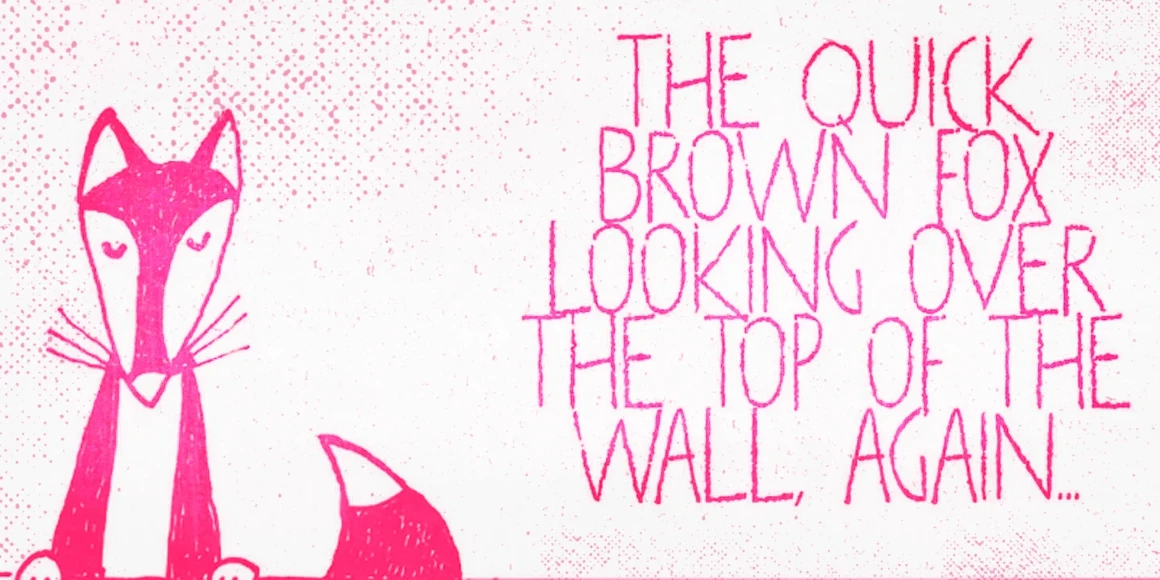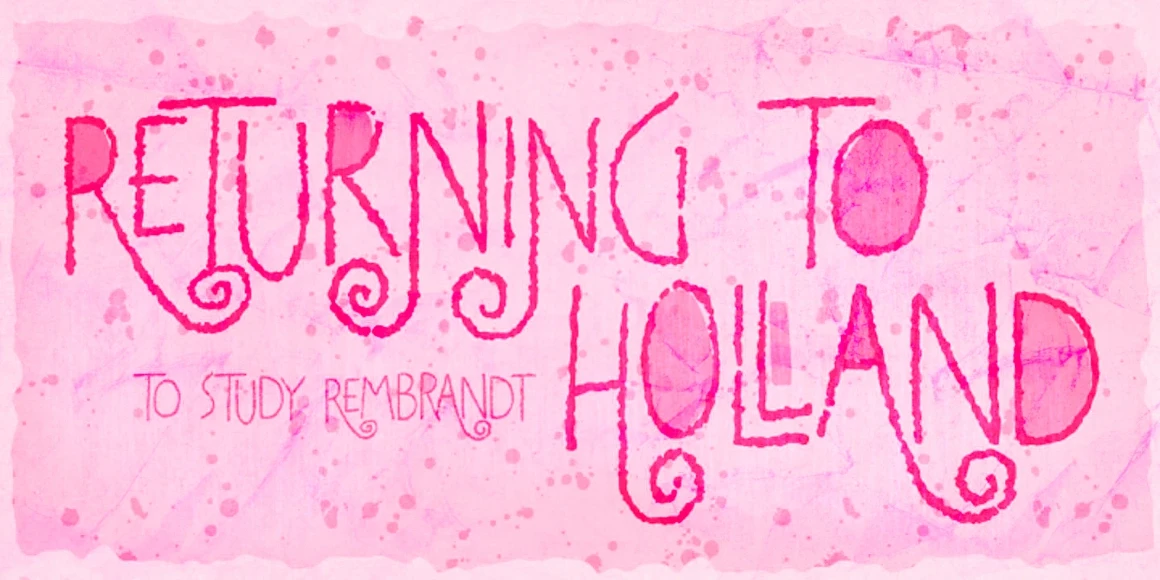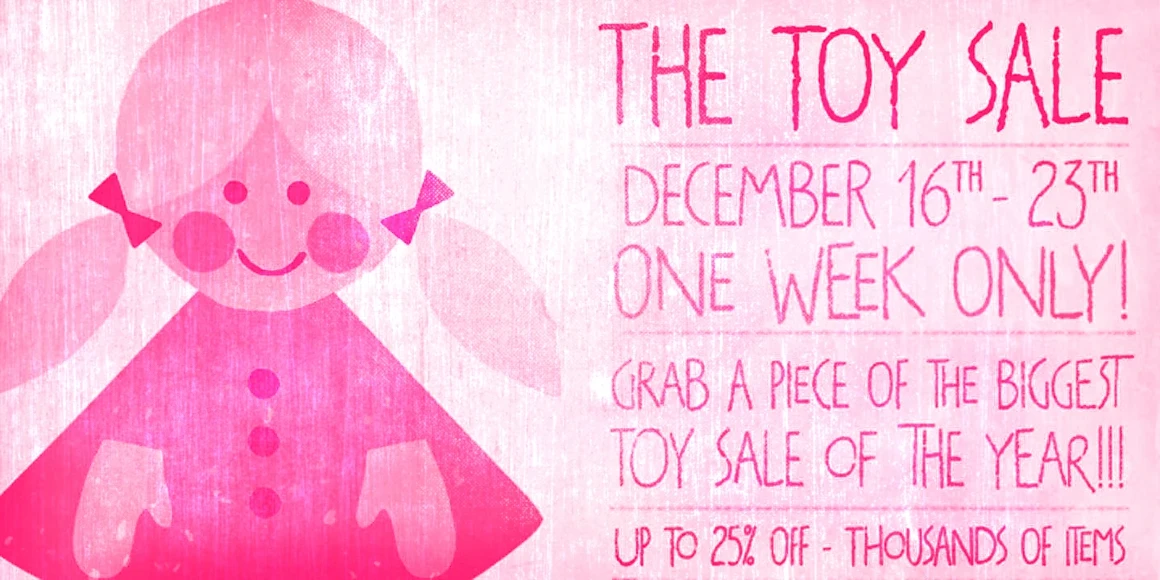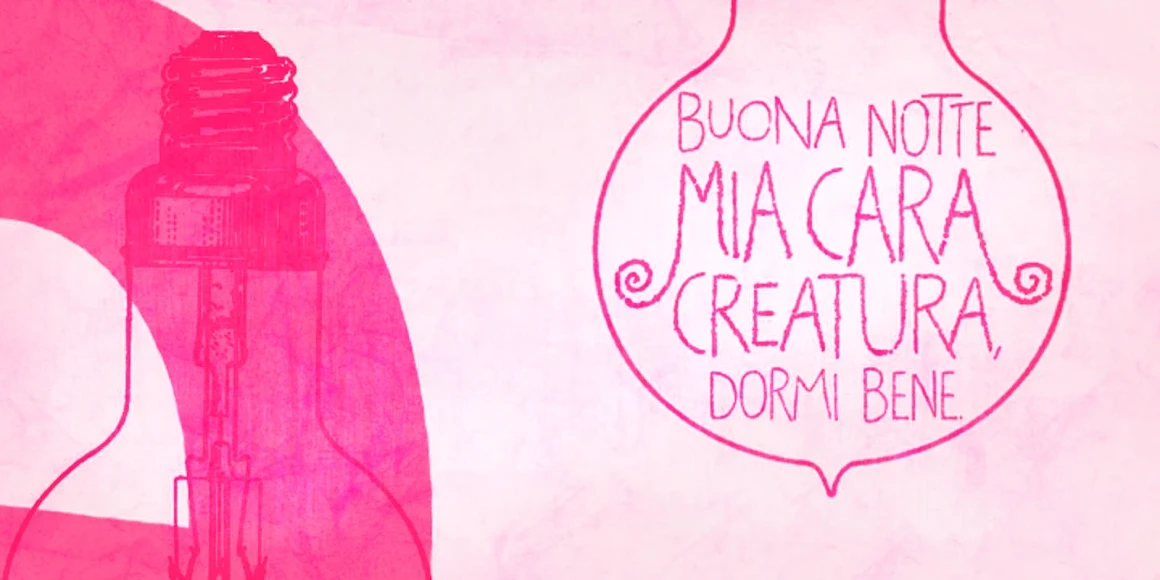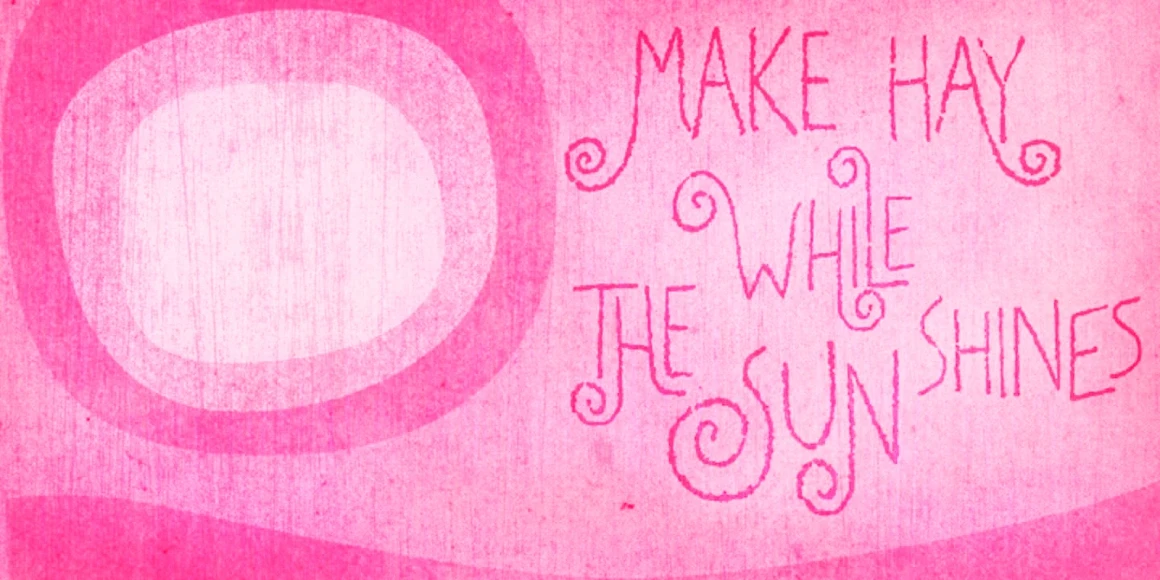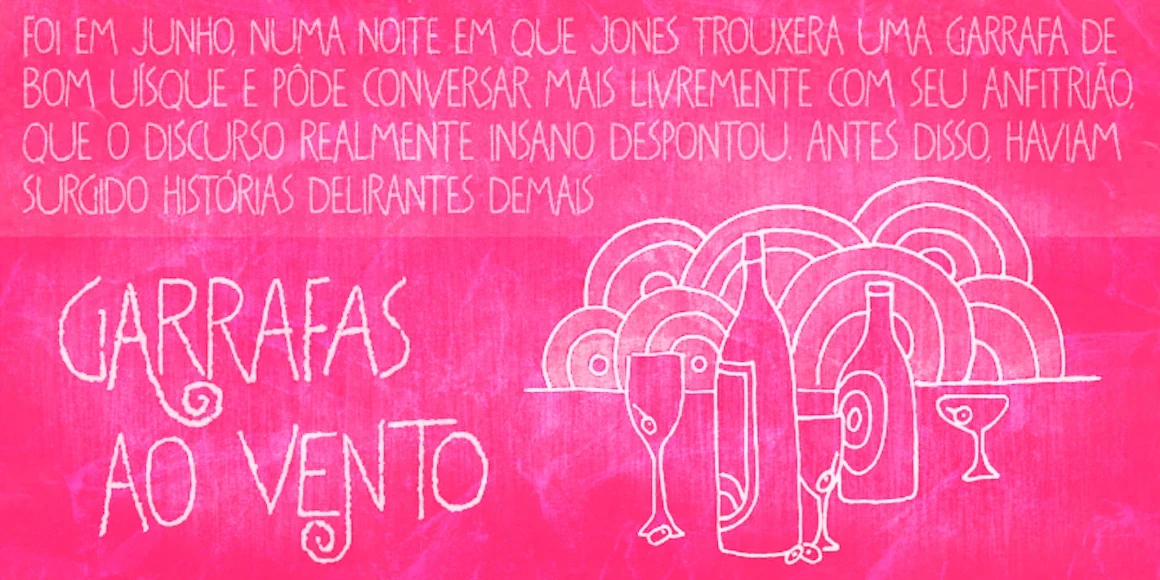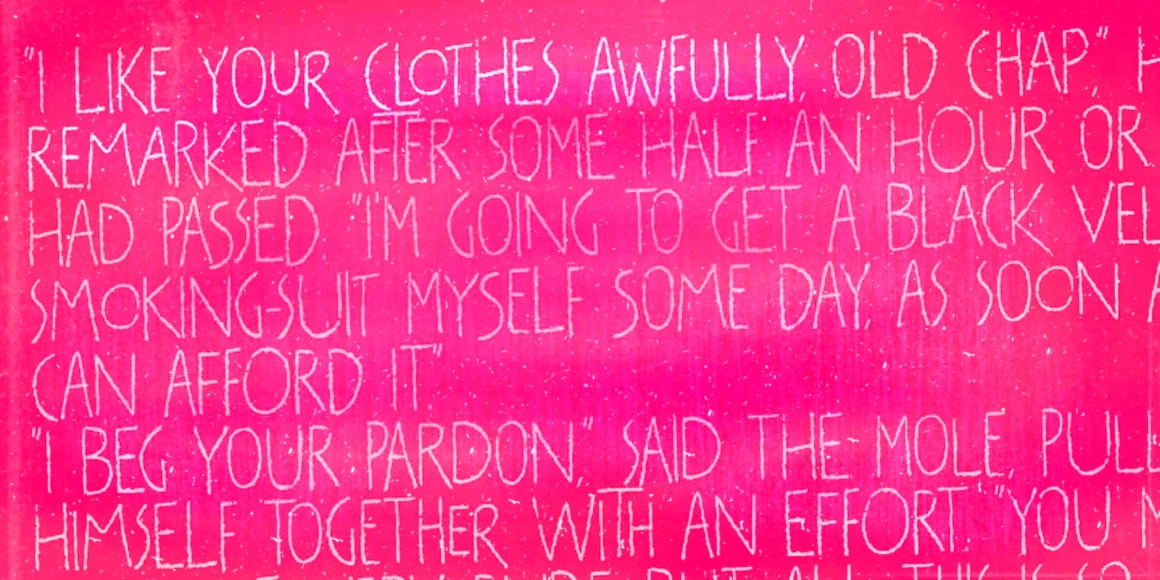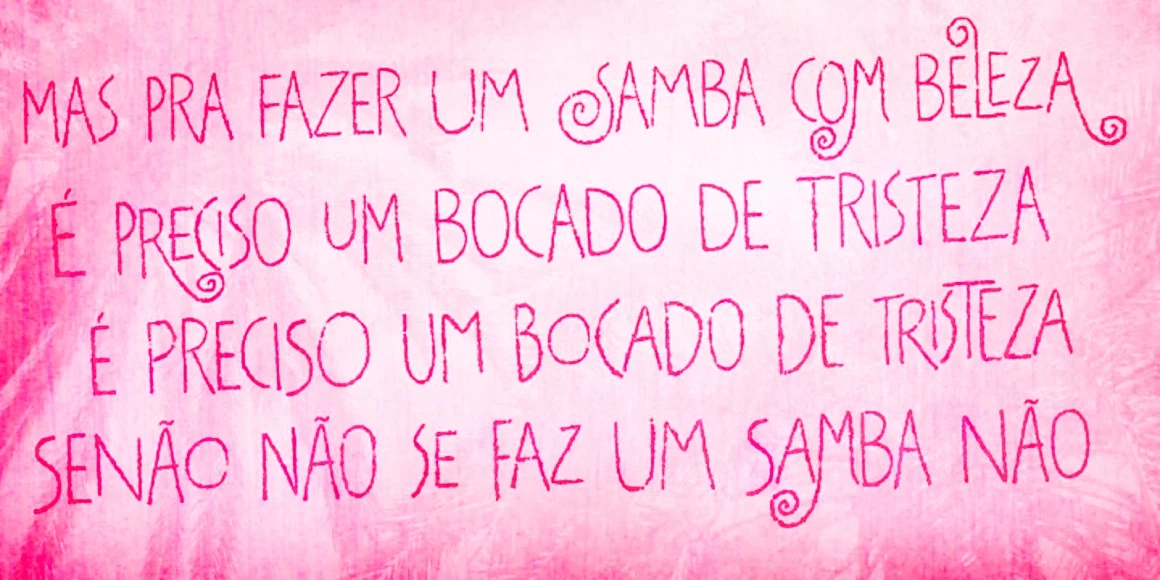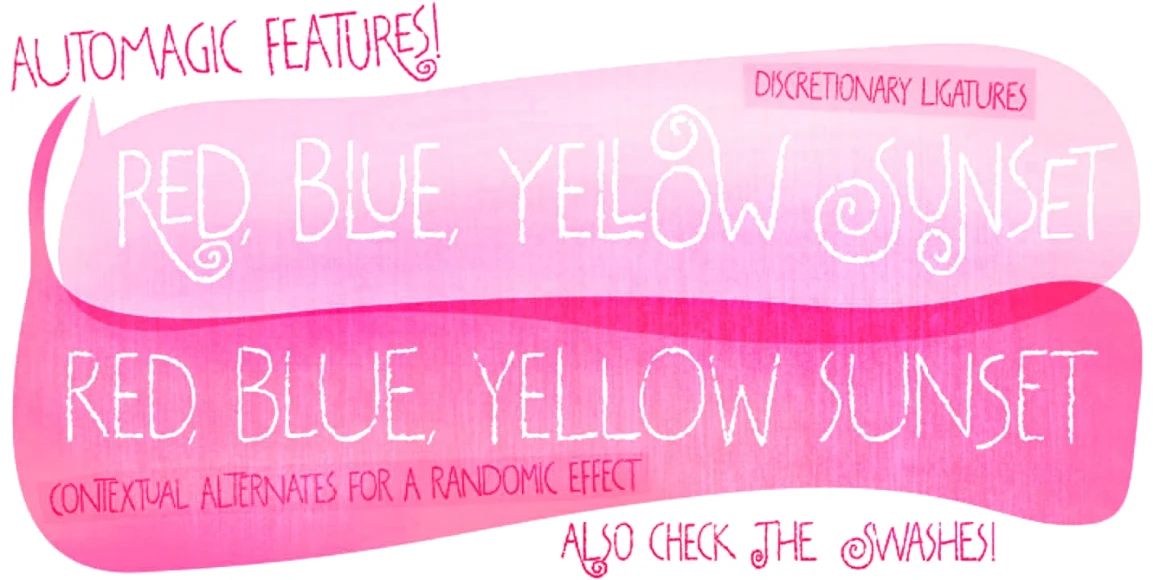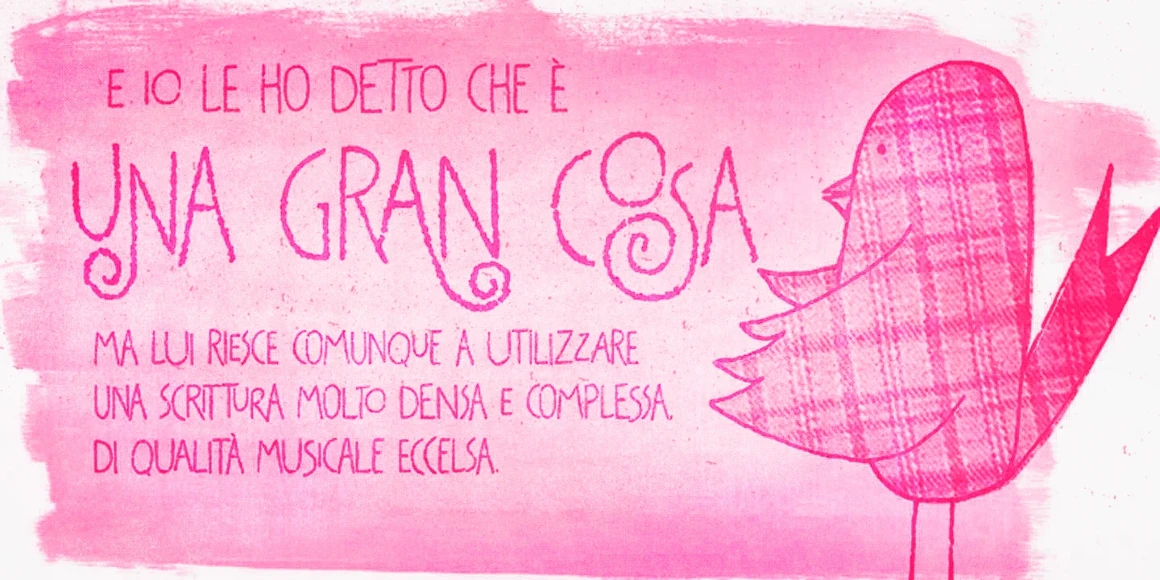
Transitore
Transitore Color A
Transitore Color B
Transitore Medium
Transitore Splashes
Transitore is a lively and playful hand-drawn typeface. It is not only chockfull of witty alternates, swashes, ligatures, and curly details, which help create a convincingly handcrafted look. And the cherry on top? Three of the styles can be stacked as layers for easy color addition, and Transitore Splashes generate irresistible splashes of ink. This family is a jam-packed toolbox that offers endless ways to style packaging, ads, merchandise, labels, invitations, and posters. Enjoy!